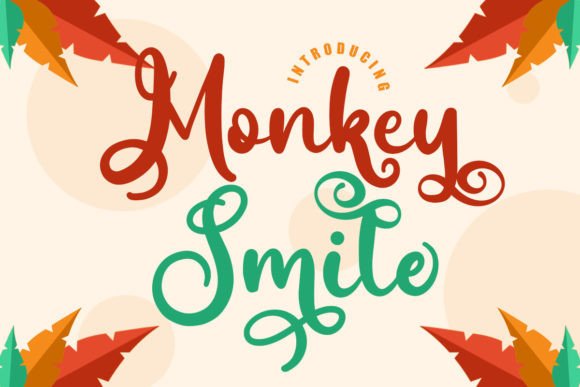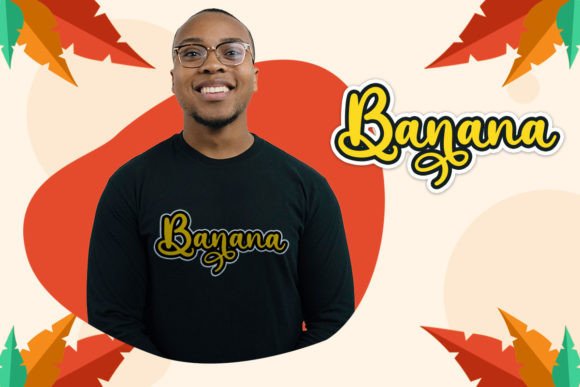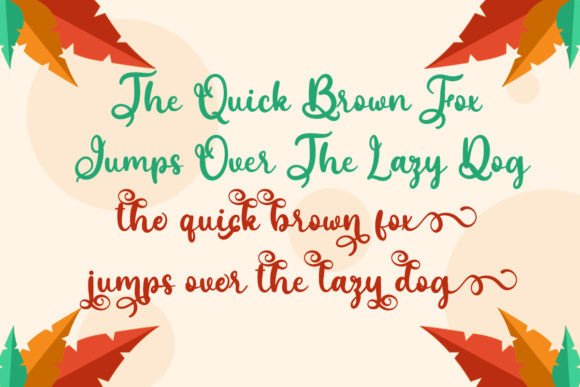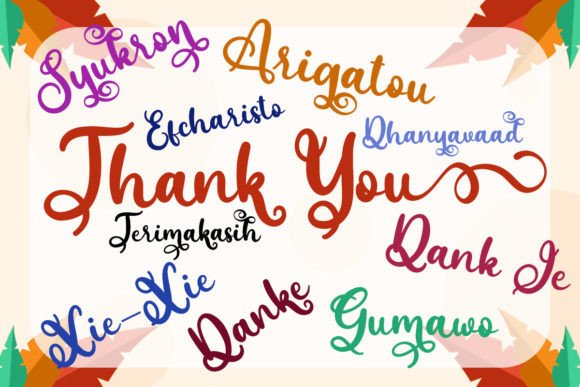
Monkey Smile Font
About Monkey Smile Font
Introducing Monkey Smile, a fun and friendly handwritten script font that brings a playful and lively touch to your designs. This font is meticulously crafted with attention to detail, making it a delightful asset for a variety of creative projects. Whatever the topic, Monkey Smile has the potential to enhance any creation in your font library.
The fun and friendly nature of Monkey Smile make it suitable for a wide range of applications. Its handwritten script adds a personal and approachable feel, making it perfect for projects that aim to convey a sense of playfulness and warmth.
Imagine Monkey Smile adorning children’s books, where its fun script adds character and joy to the storytelling experience. Picture it on greeting cards, creating a friendly and inviting atmosphere for your messages. Envision it becoming the go-to font for social media posts, adding a touch of whimsy and personality to your content.
Monkey Smile is more than just a font; it’s a creative asset that brings a sense of fun to your projects. Its neat craftsmanship and friendly style make it a wonderful choice for enhancing various creations.